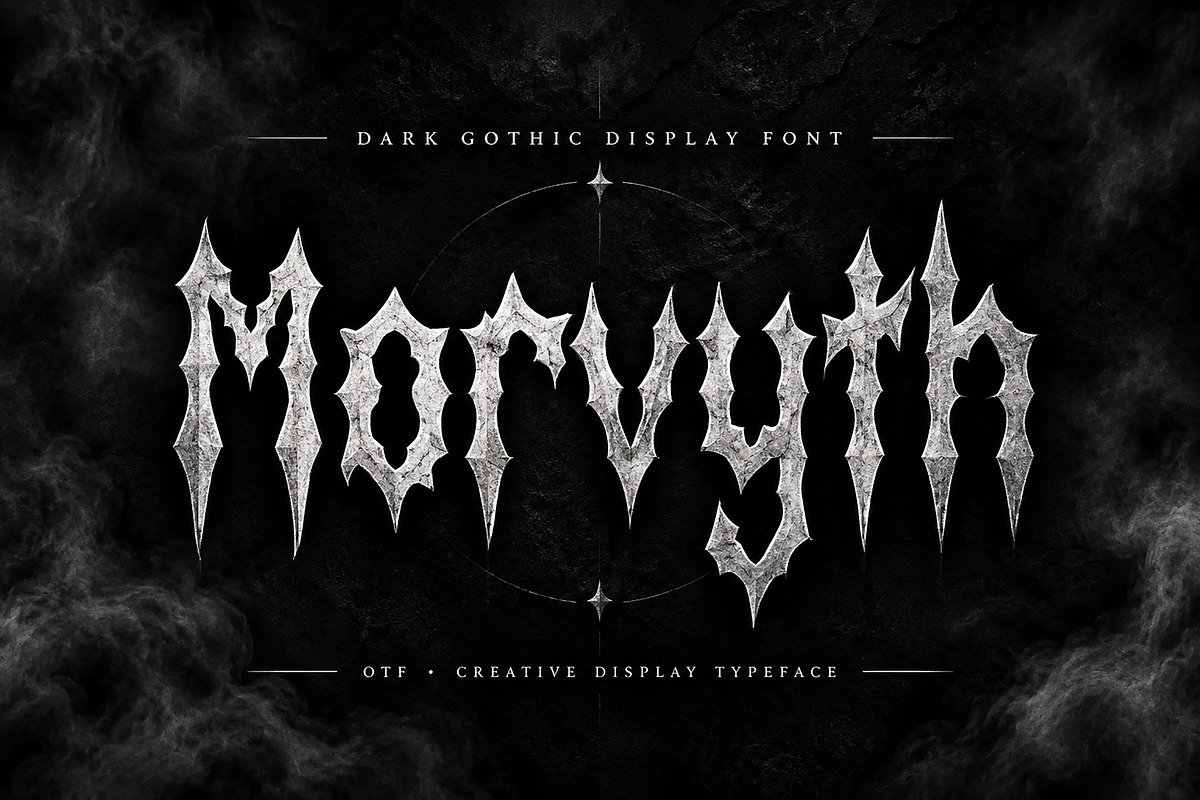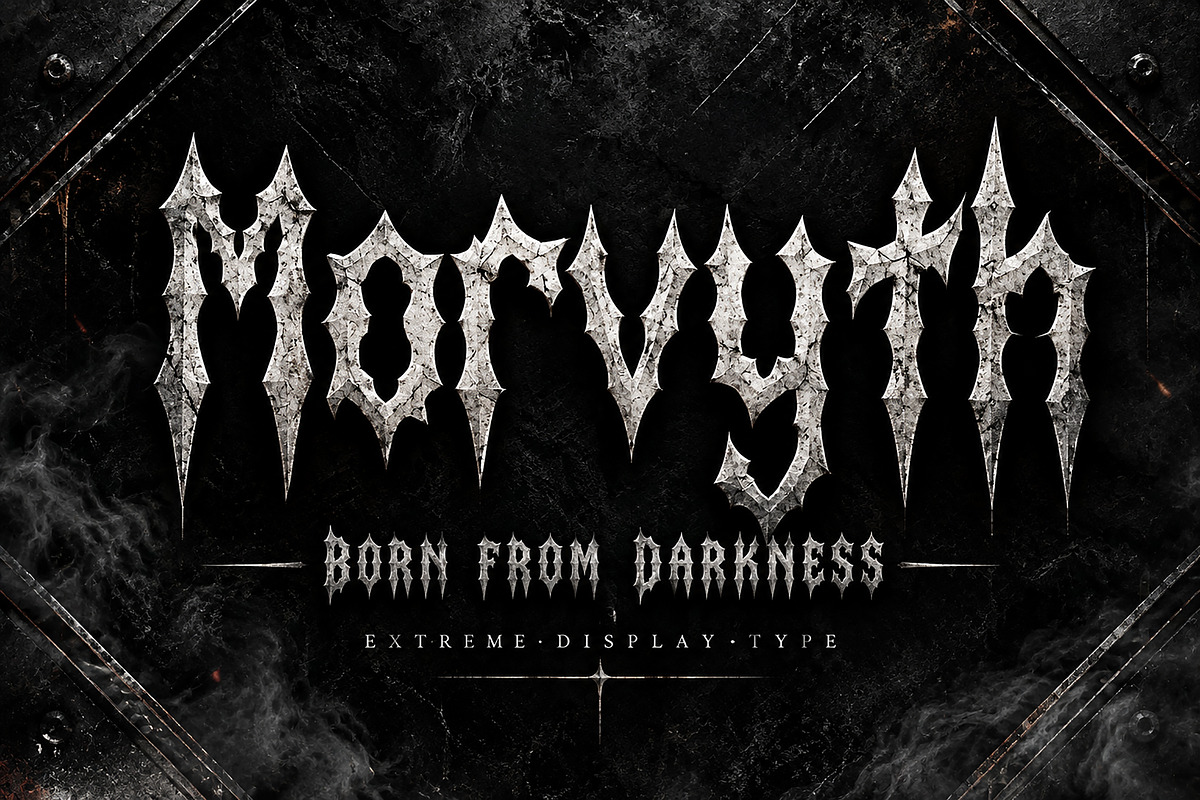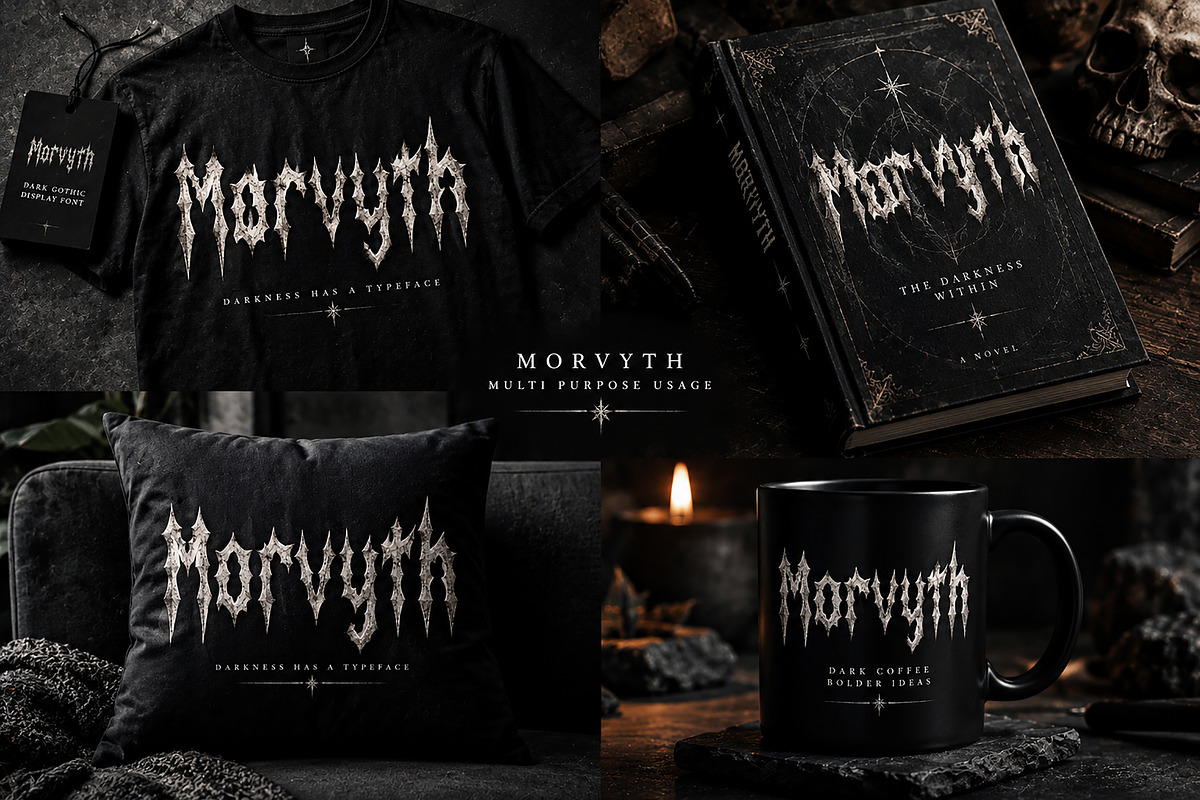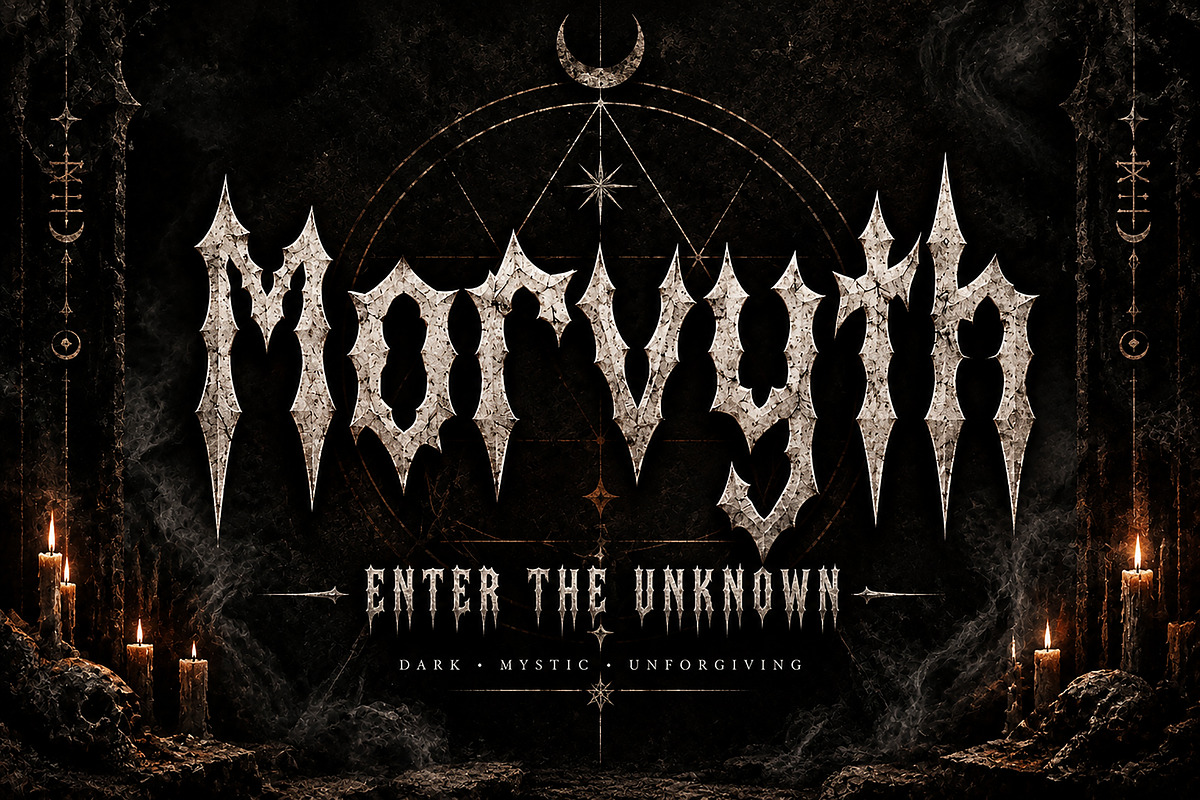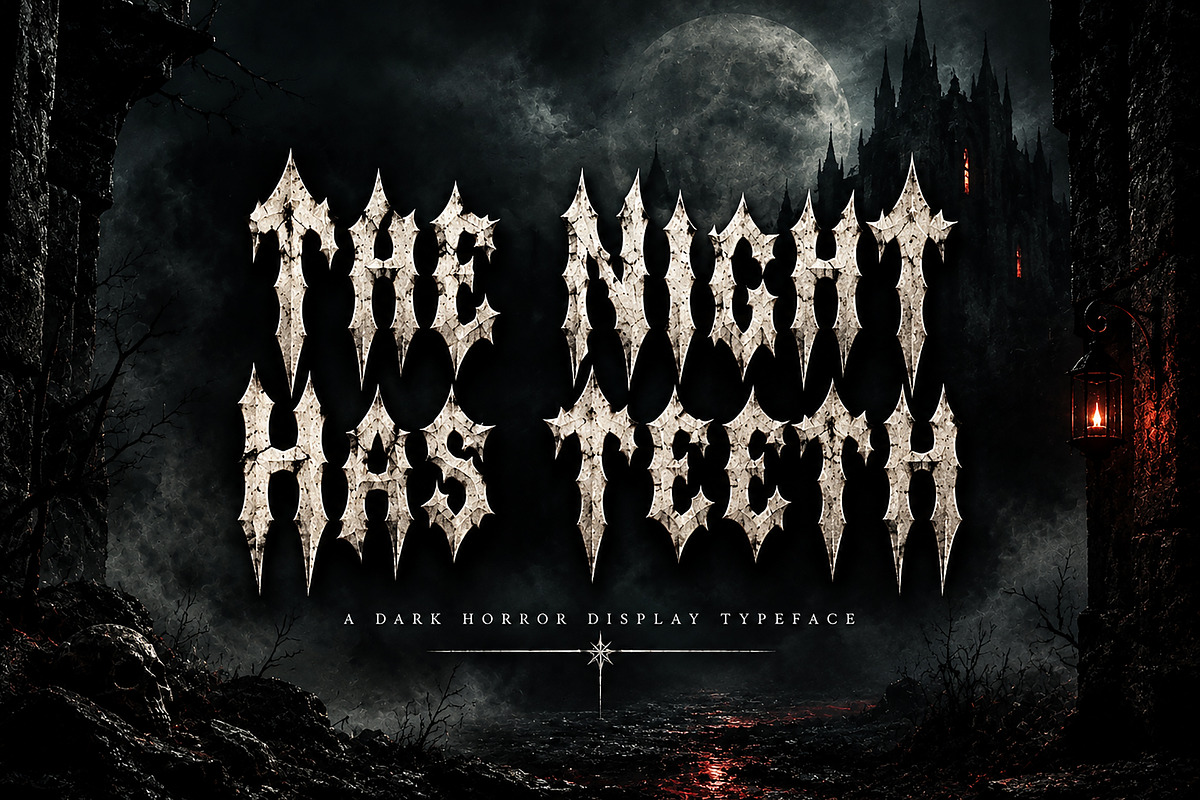
Morvyth — Dark Gothic Display Font
Morvyth is a striking dark gothic display font designed for projects that demand a bold, mysterious, and unconventional visual identity. Featuring sharp, elongated forms and an aggressive black-metal-inspired aesthetic, Morvyth brings an intense and atmospheric character to your designs.
Perfect for creating eye-catching horror posters, dark branding, album artwork, heavy metal graphics, streetwear, apparel, book covers, logos, merchandise, gaming artwork, tattoos, event posters, and more.
Its distinctive silhouette makes Morvyth especially effective for large headlines, titles, logos, and statement designs where you want typography to become the main visual element.
Dark Gothic Branding
Horror Posters
Heavy Metal Artwork
Album & Music Covers
Streetwear & T-Shirt Designs
Book & Novel Covers
Logo & Title Design
Gaming Graphics
Tattoo-Inspired Artwork
Event Posters
Editorial & Creative Projects
Unique Dark Gothic Display Style
Sharp & Aggressive Letterforms
Distinctive Black-Metal-Inspired Aesthetic
Ideal for Large Headlines & Display Typography
Great for Branding and Merchandise
Bring a darker, more mysterious edge to your next creative project with Morvyth.